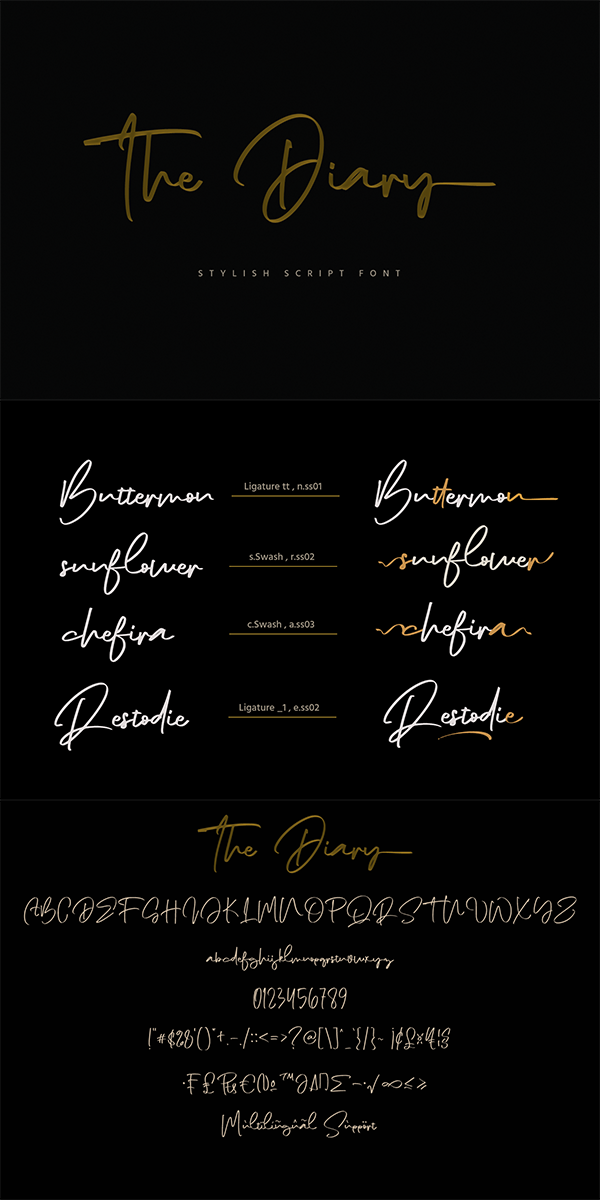
The Diary Font
Designed by Gie Studio
About The Diary
The Diary is an original script font with a modern, contemporary style and beautiful, natural flow. This font is perfect for many projects such as logos & branding, invitation, stationery, wedding designs, social media posts, advertisements, product packaging, product designs, label, photography, watermark, and others.